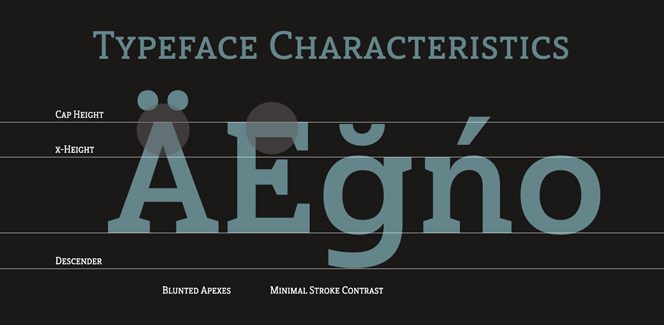
Haboro Slab by insigne – the simple look of luxury
Haboro Slab is the latest offer by the US designer Jeremy Dooley and his one-man insigne type foundry. It is his second Haboro work after the original – a powerful neoclassical workhorse. Haboro Slab complements its predecessor perfectly and the two fonts could combine greatly. However, even if used on its own the typeface will bring great results. It has a workhorse nature too – plain and clear look achieved through its simplified geometric features and a great legibility. Still, Haboro Slab has something unique of its own, something very personal – a truly luxurious grit thanks mostly to the font’s advanced angle and the wedge-molded serifs. This makes it a powerful tool for successful projects in great variety of different areas like newspapers, magazines, posters, packaging, web applications, web sites, advertising and many more.
In terms of choice provided, Haboro Slab has a lot to offer. The family includes three styles – Normal, Condensed and Extended. Each of them consists of seven weights – Light, Book, Regular, Medium, Demi, Bold and Ex Bold, each with its respective Italics. On top of that, the typeface has a wide range of alternates and ligatures and plenty of OpenType features like Small Capitals, Oldstyle Figures, Titling Capitals, etc.